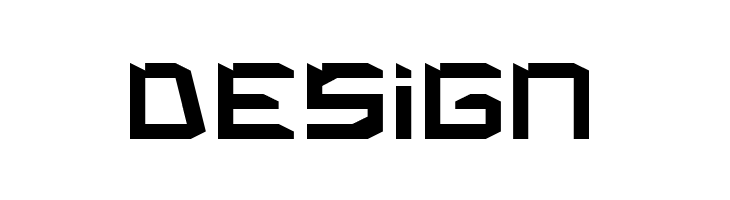
Martyric Personal Use Only(RUS Font
- Font: Martyric Personal Use Only(RUS
A bold, geometric font with angular, blocky letterforms and a modern aesthetic.